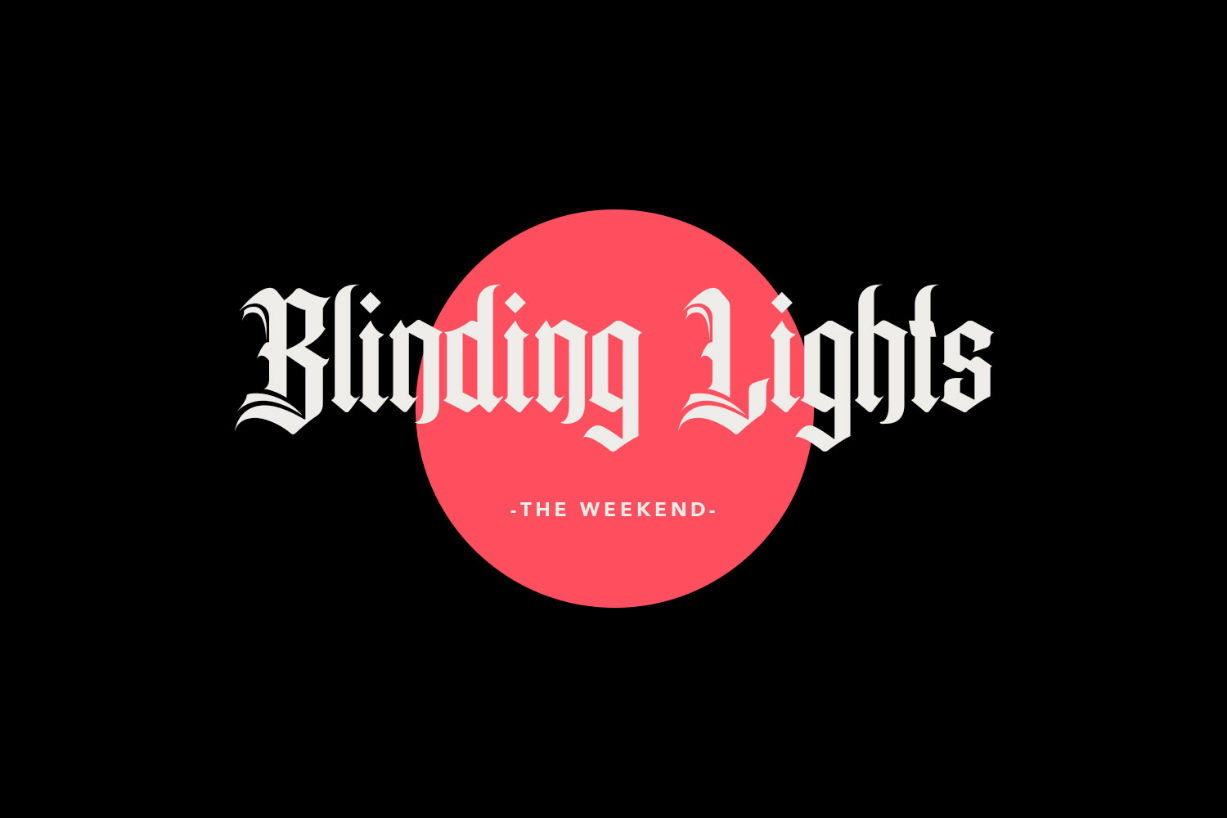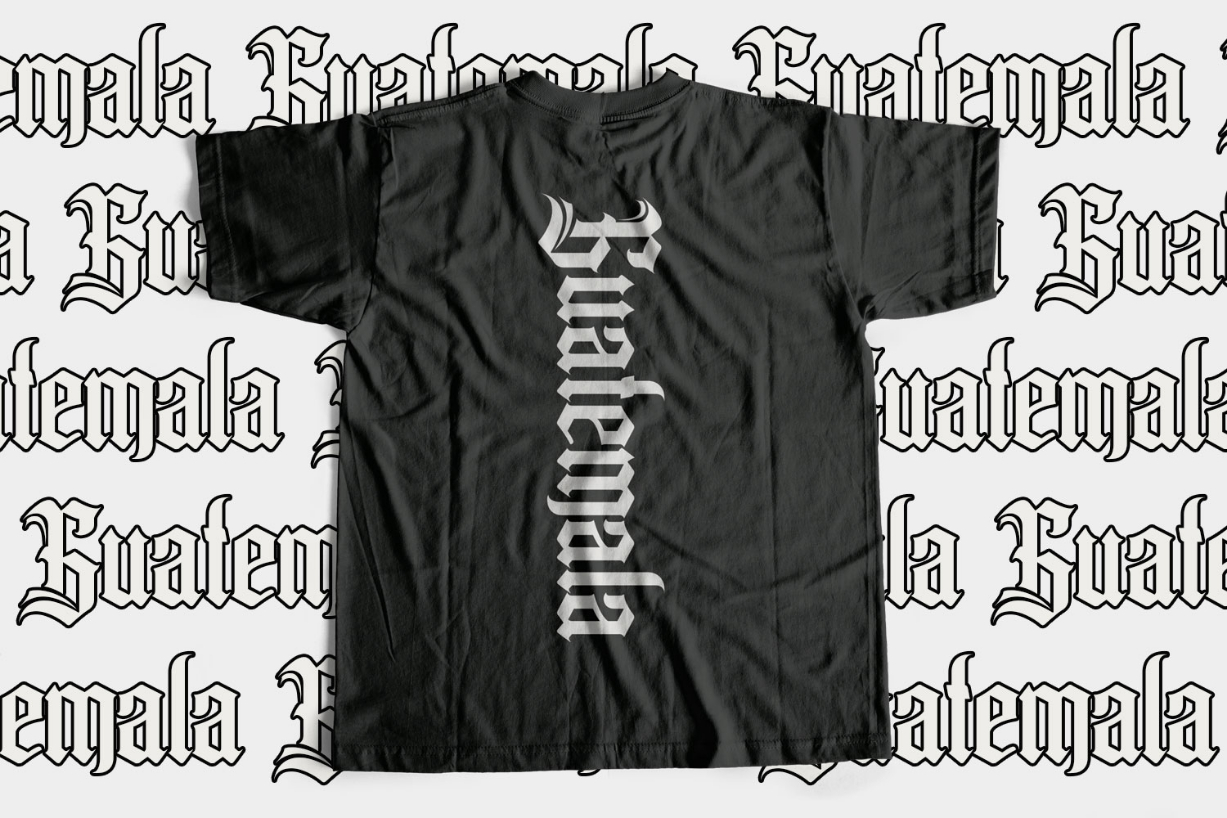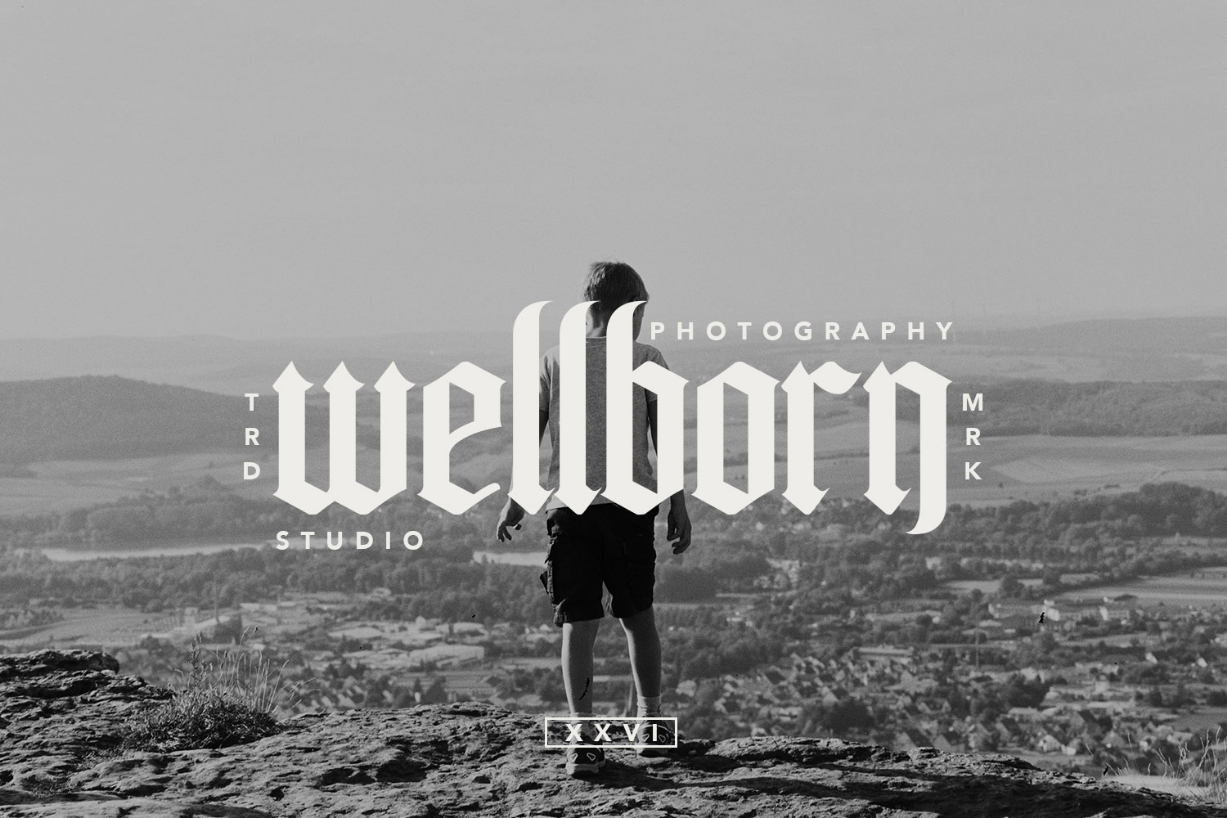
About Pollyester Font
Pollyester feels playfully nostalgic and delivers an incredible vintage aesthetic. Use this blackletter font to add that special retro touch to any design idea you can think of!
Fall in love with its incredibly distinct and timeless style and use it to create spectacular designs!